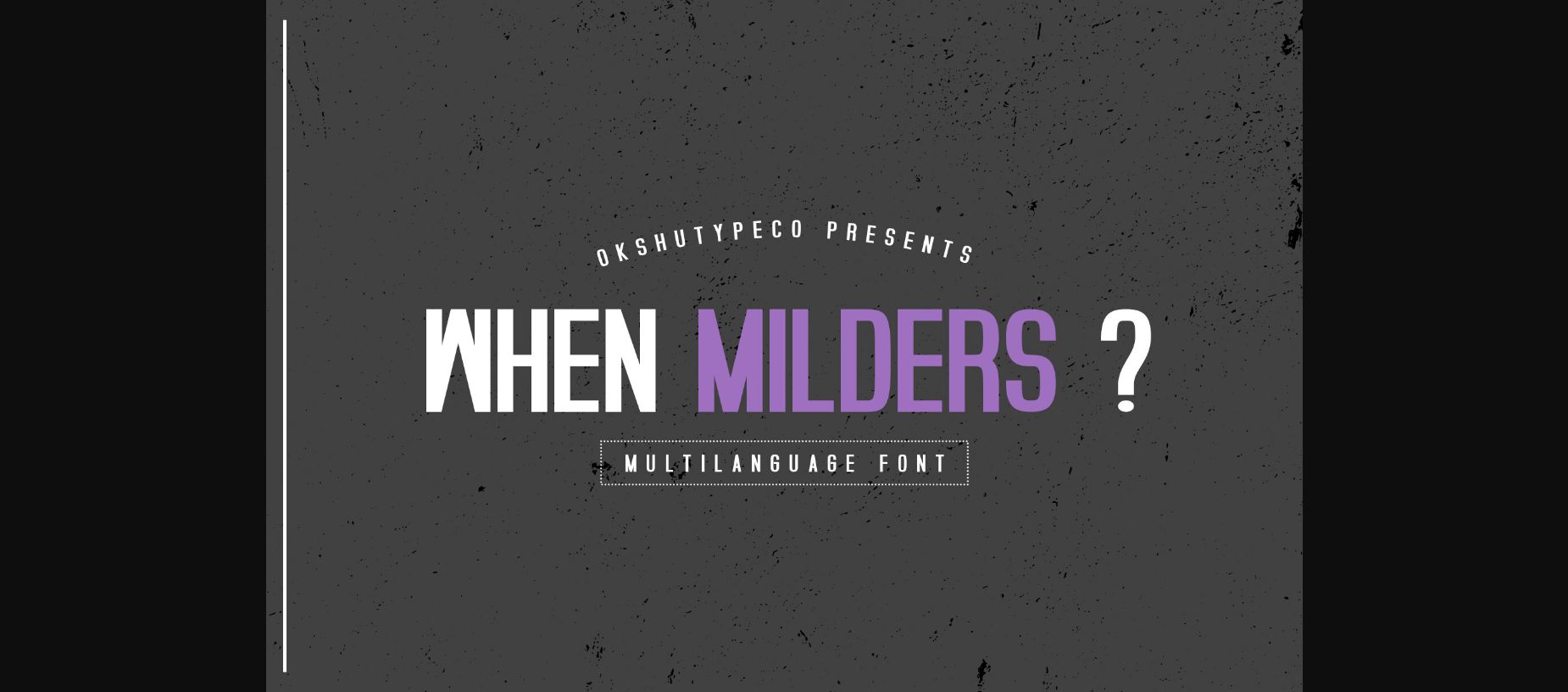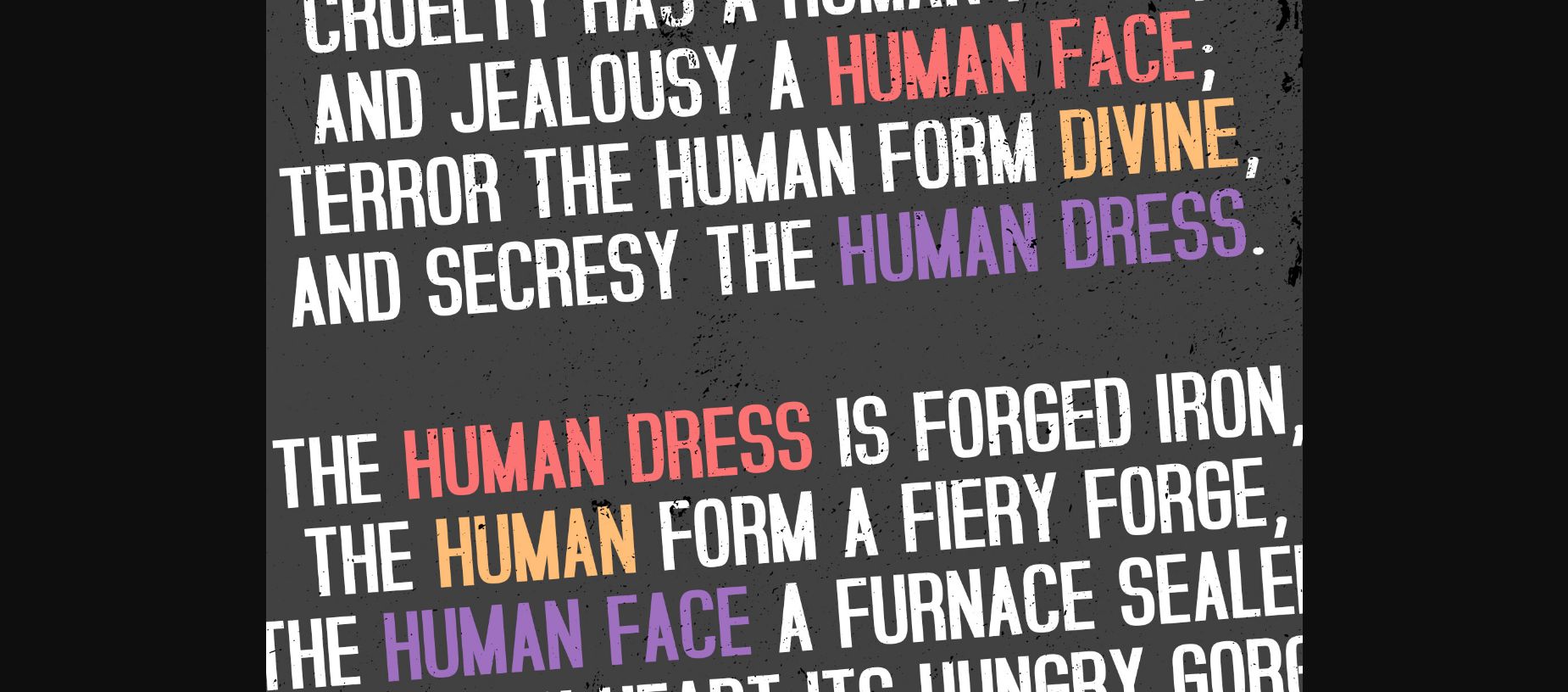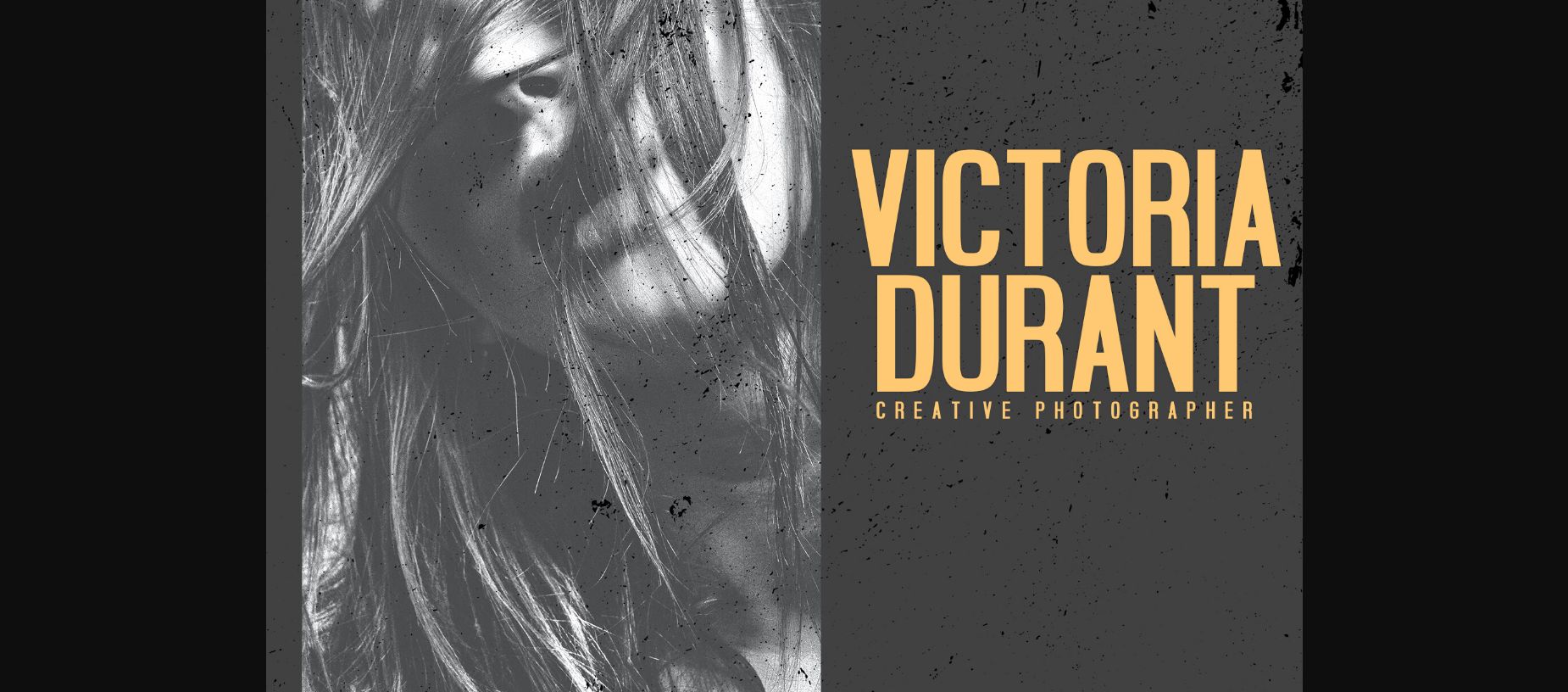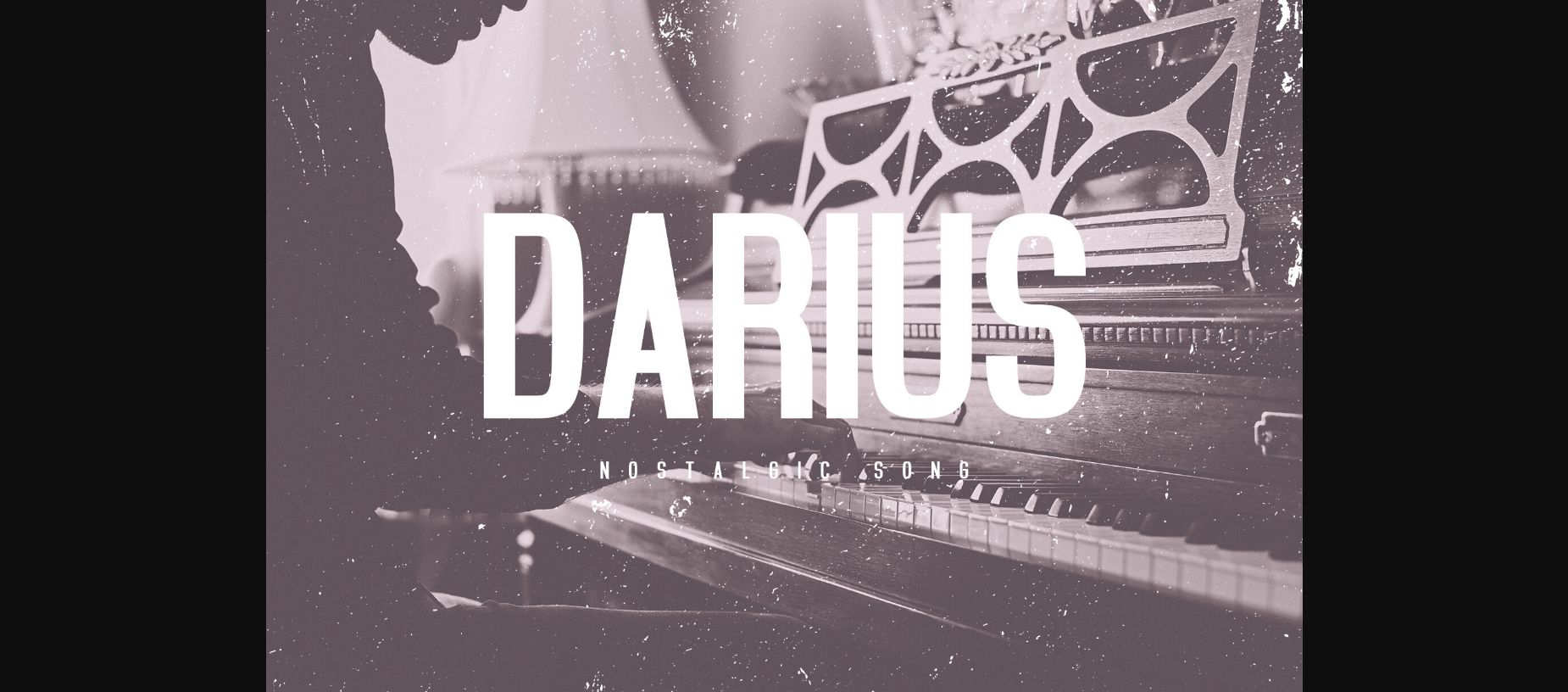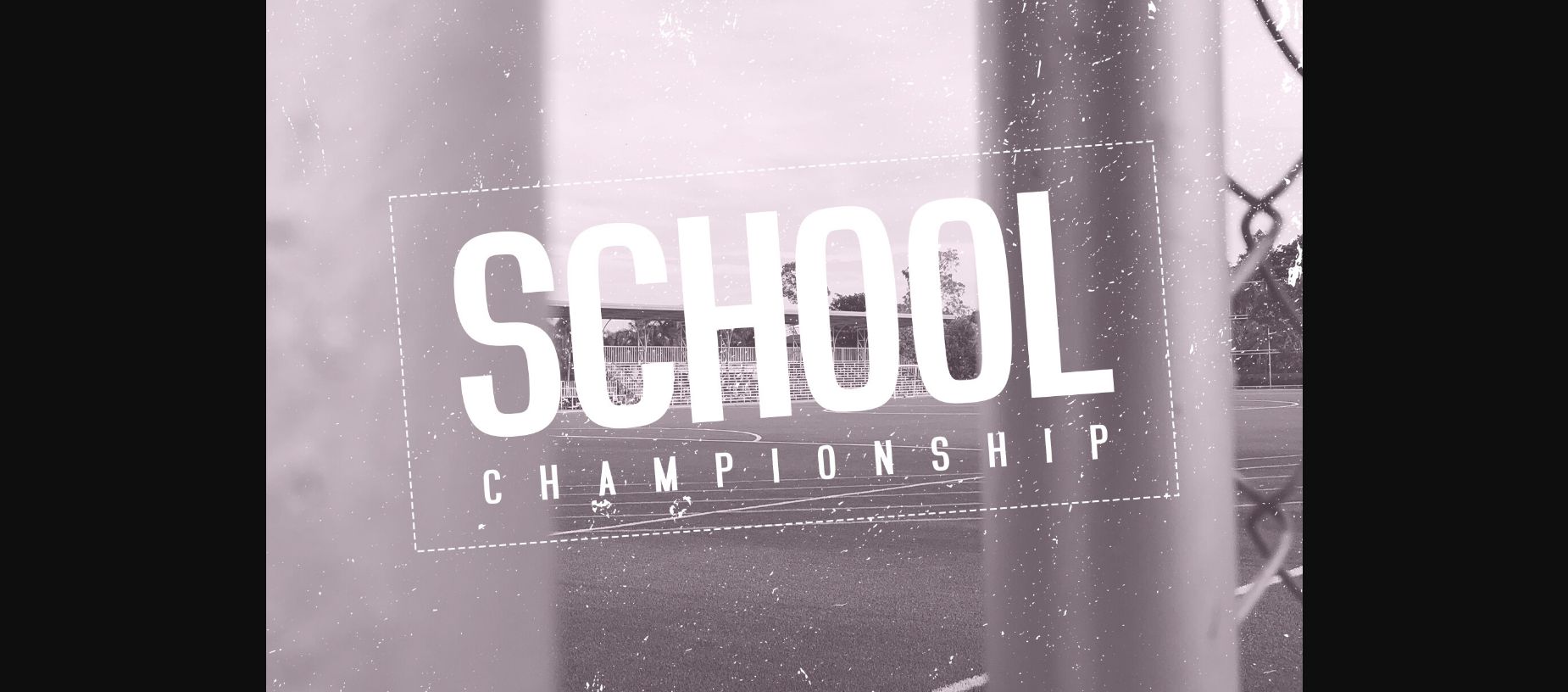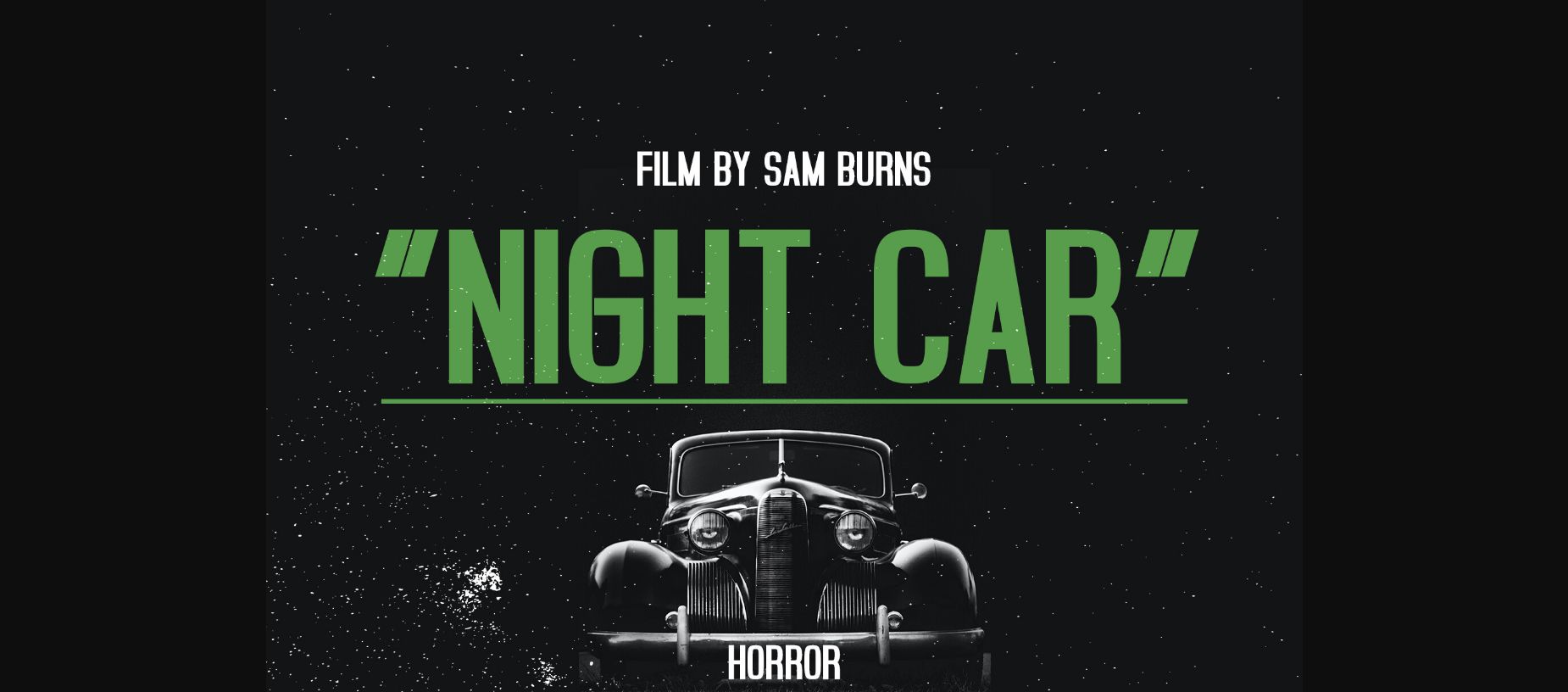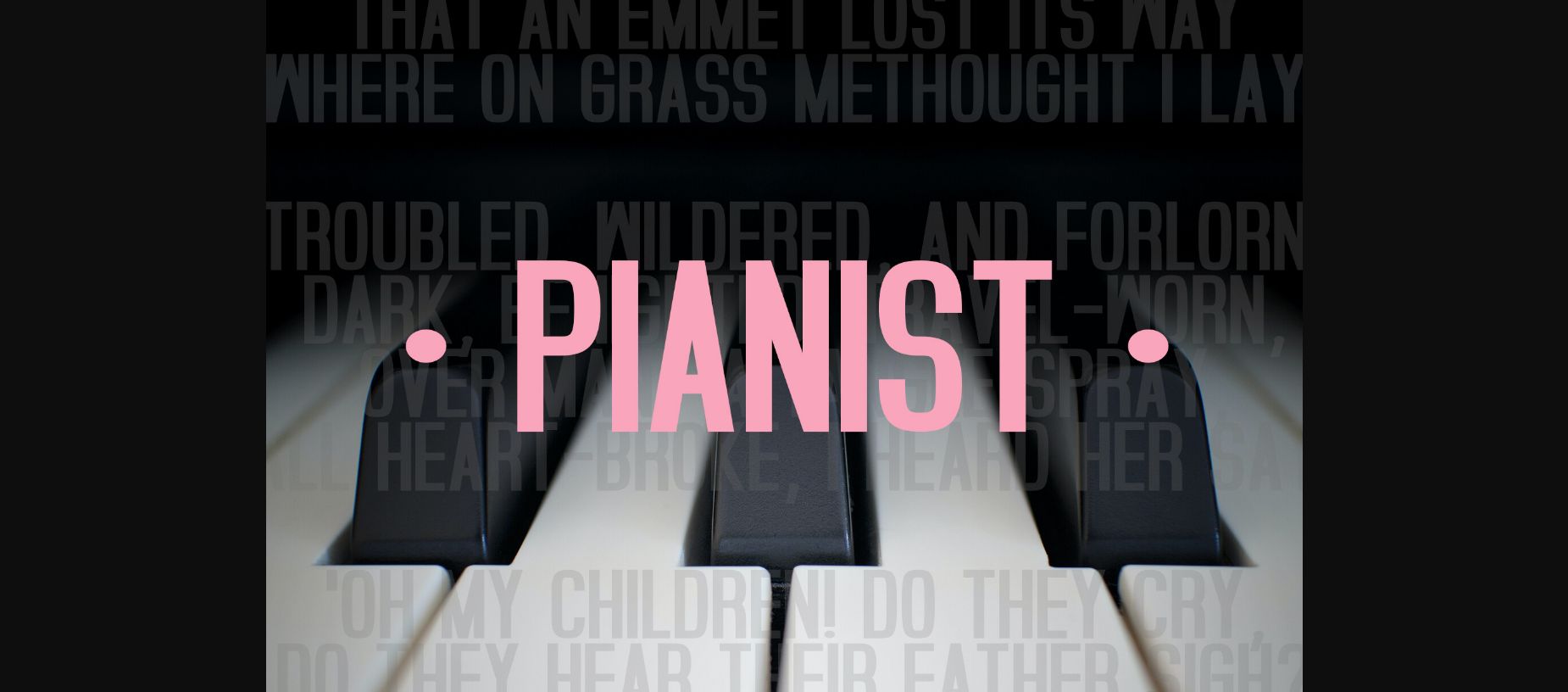
About When Milders Font
**When Milders** – a new fresh handmade sans serif font.
Very suitable for greeting cards, branding materials, business cards, quotes, posters, and more! This font is perfect for wedding postcards. Or you can create perfect and unique designs for your logo, blog, stationery, marketing, magazines, and more.